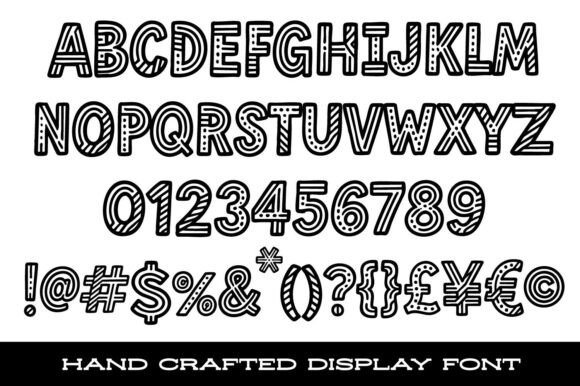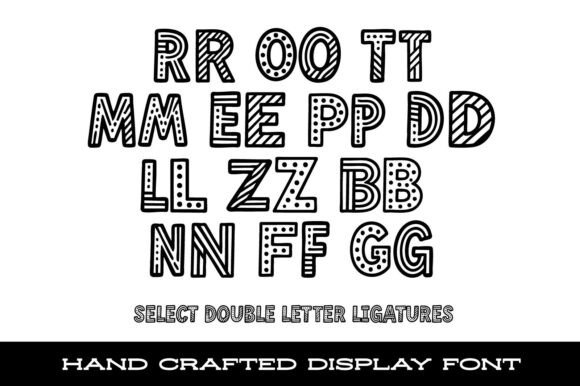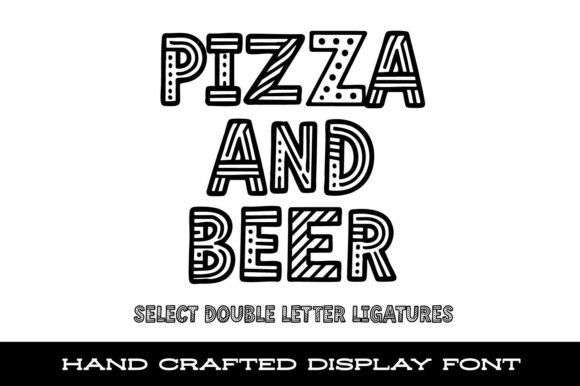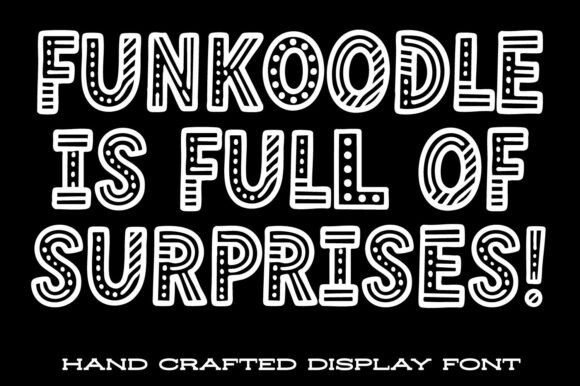
Introducing Funkoodle Font: The Ultimate Party in Typography
Are you ready to add a dash of fun and personality to your designs? Look no further than the Funkoodle font, a hand-drawn display font that is bursting with character. This exciting new font is perfect for designers and crafters who want to add a playful touch to their work.
A Font that Dances with Personality
Funkoodle is not just a font – it’s an experience. Each letter is carefully crafted with bold outlines and playful patterned fills, creating a lively and eye-catching texture. The font alternates between polka dots and diagonal stripes, giving it a dynamic and energetic feel. Whether you’re designing a poster, packaging, or statement headlines, Funkoodle is sure to make your work pop.
A Handcrafted Warmth
One of the standout features of Funkoodle is its chunky, slightly imperfect strokes. This gives the font a handcrafted warmth that is perfect for designers who want to add a human touch to their work. The high-contrast black-on-white style makes the font stand out, even in bold and busy designs.
More than Just a Font – a Party in Typography
Funkoodle doesn’t just spell words – it throws them a party. This font is designed to bring fun and excitement to your designs, and it’s perfect for projects that need a playful touch. Whether you’re designing for a children’s brand, a craft project, or just want to add some personality to your work, Funkoodle is the perfect choice.
Funkoodle is a versatile font that is perfect for a wide range of design projects. Here are just a few ideas for how you can use this exciting new font:
- Posters and flyers: Add a playful touch to your posters and flyers with Funkoodle’s bold and eye-catching texture.
- Packaging design: Make your products stand out on store shelves with Funkoodle’s fun and energetic font.
- Statement headlines: Add a dash of personality to your headlines with Funkoodle’s chunky and imperfect strokes.
- Craft projects: Funkoodle is perfect for crafters who want to add a playful touch to their projects, from handmade cards to DIY decorations.
Tips for Using Funkoodle
Here are a few tips for getting the most out of Funkoodle:
- Experiment with different colors: While the high-contrast black-on-white style is stunning, don’t be afraid to experiment with different colors to add even more personality to your designs.
- Mix and match: Try pairing Funkoodle with other fonts to create a unique and eye-catching look.
- Play with texture: Funkoodle’s polka dots and diagonal stripes are just the beginning – try experimenting with different textures and patterns to add even more interest to your designs.
Funkoodle is more than just a font – it’s a party in typography. With its bold outlines, playful patterned fills, and chunky strokes, this hand-drawn display font is perfect for designers and crafters who want to add a dash of fun and personality to their work. Whether you’re designing posters, packaging, or statement headlines, Funkoodle is sure to make your work pop. So why wait? Join the party and start designing with Funkoodle today!